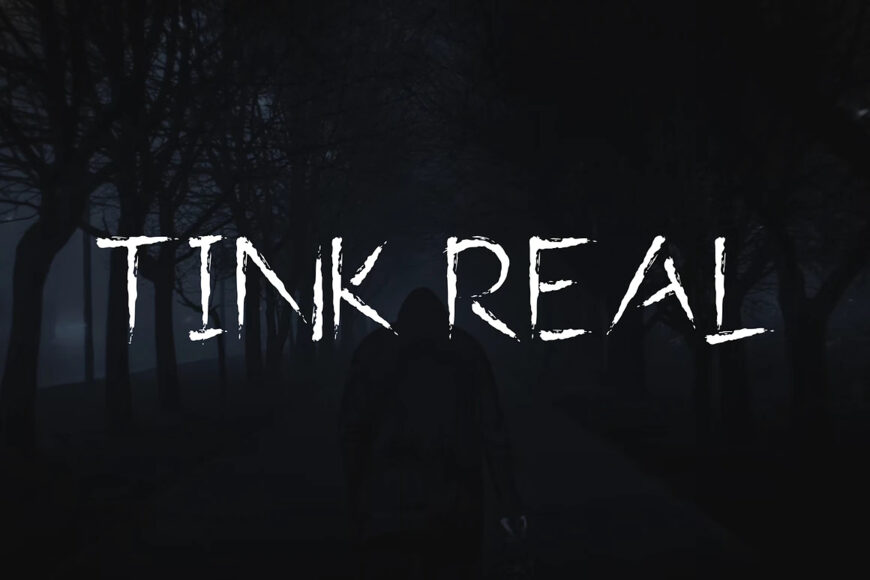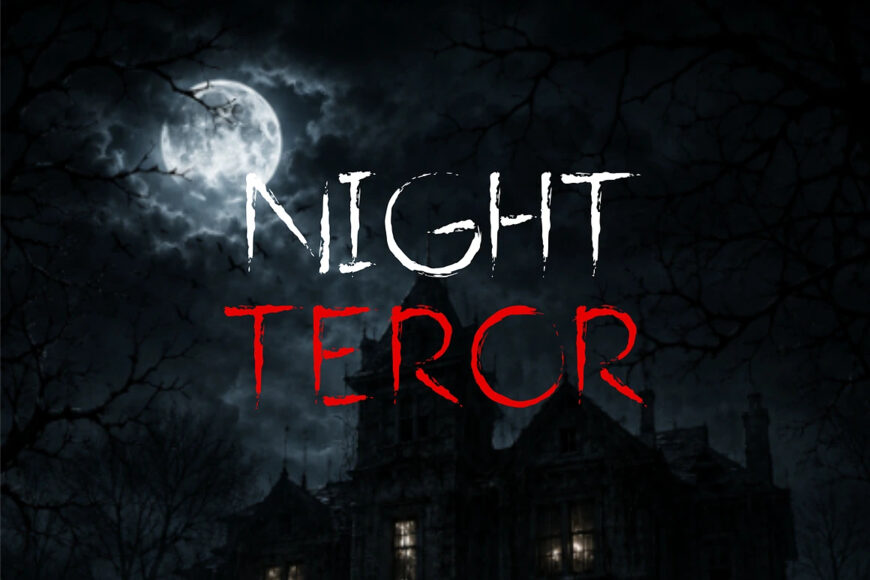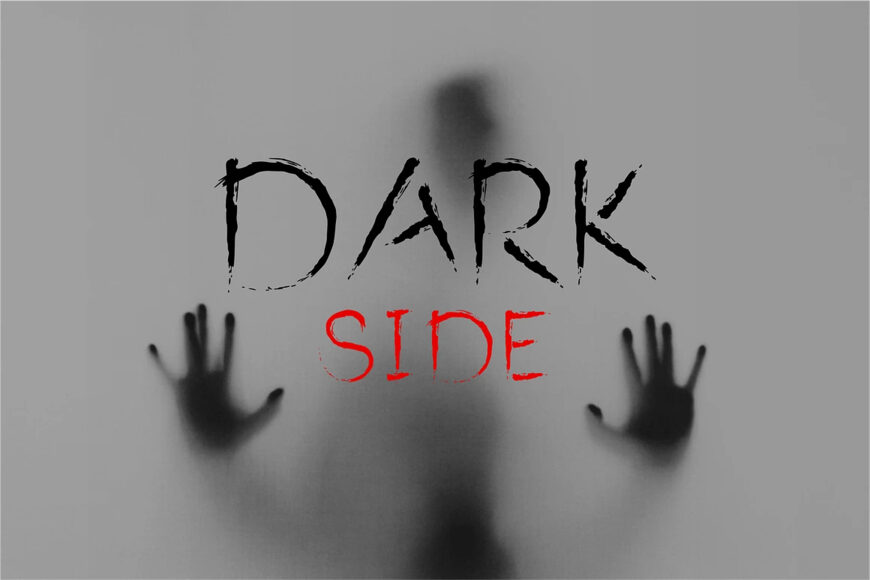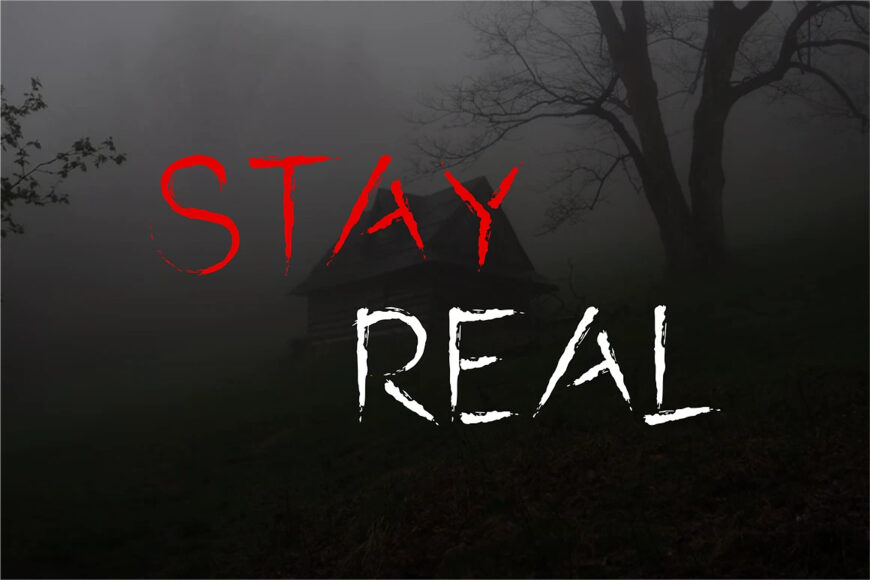
TINK REAL is a haunting handwritten horror font crafted to bring a raw, eerie, and unsettling atmosphere to your creative projects. Featuring rough brush strokes, distressed textures, and irregular letterforms, this font captures the feeling of scratched markings, abandoned places, and psychological thrillers.
Perfect for horror movie titles, Halloween designs, spooky event posters, book covers, game graphics, YouTube thumbnails, branding, album artwork, and dark-themed merchandise, TINK REAL delivers an authentic handcrafted look that instantly grabs attention.